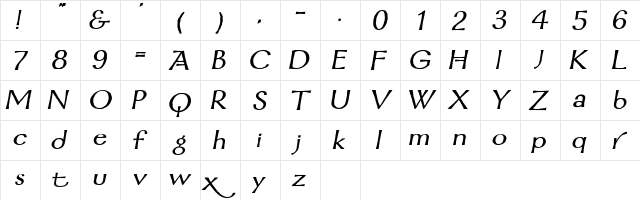
Mordred Demi Bold Italic
Design Context for Mordred Typeface
Mordred takes a measured approach to typography — its balanced proportions and neutral character make it a reliable workhorse for both digital and print work. The dynamic lean of this cut emphasises speed and emphasis in any layout. The heavy weight commands attention and anchors typographic hierarchies.
Pro Tip: Try Mordred for annotation and caption copy alongside an upright companion — the contrast in angle creates a dynamic but ordered typographic system.